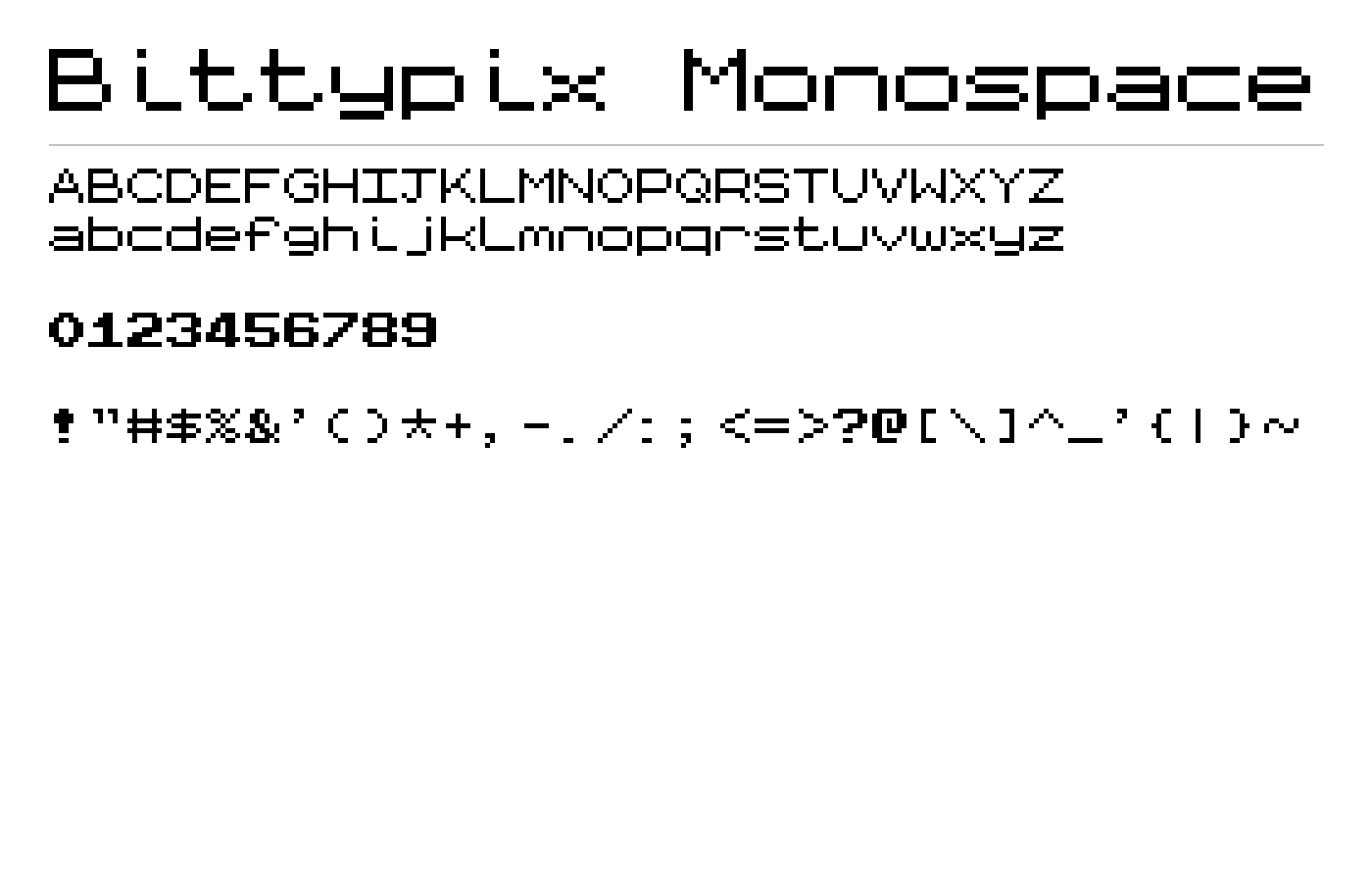
Bittypix Monospace is a pixel-art inspired monospace font characterized by its blocky, geometric letterforms and consistent spacing, creating a retro digital aesthetic. With its clean, regular weight and pixelated style, it works perfectly for coding environments, tech-themed designs, or vintage video game graphics, offering clear readability while evoking nostalgic charm. This font’s distinct look makes it ideal for headlines, user interfaces, or branding that aims for a playful yet tech-savvy vibe.
Bittypix Monospace Font
About Bittypix Monospace Font
| Font family | Bittypix Monospace Font |
| Designer | GameDevDan |